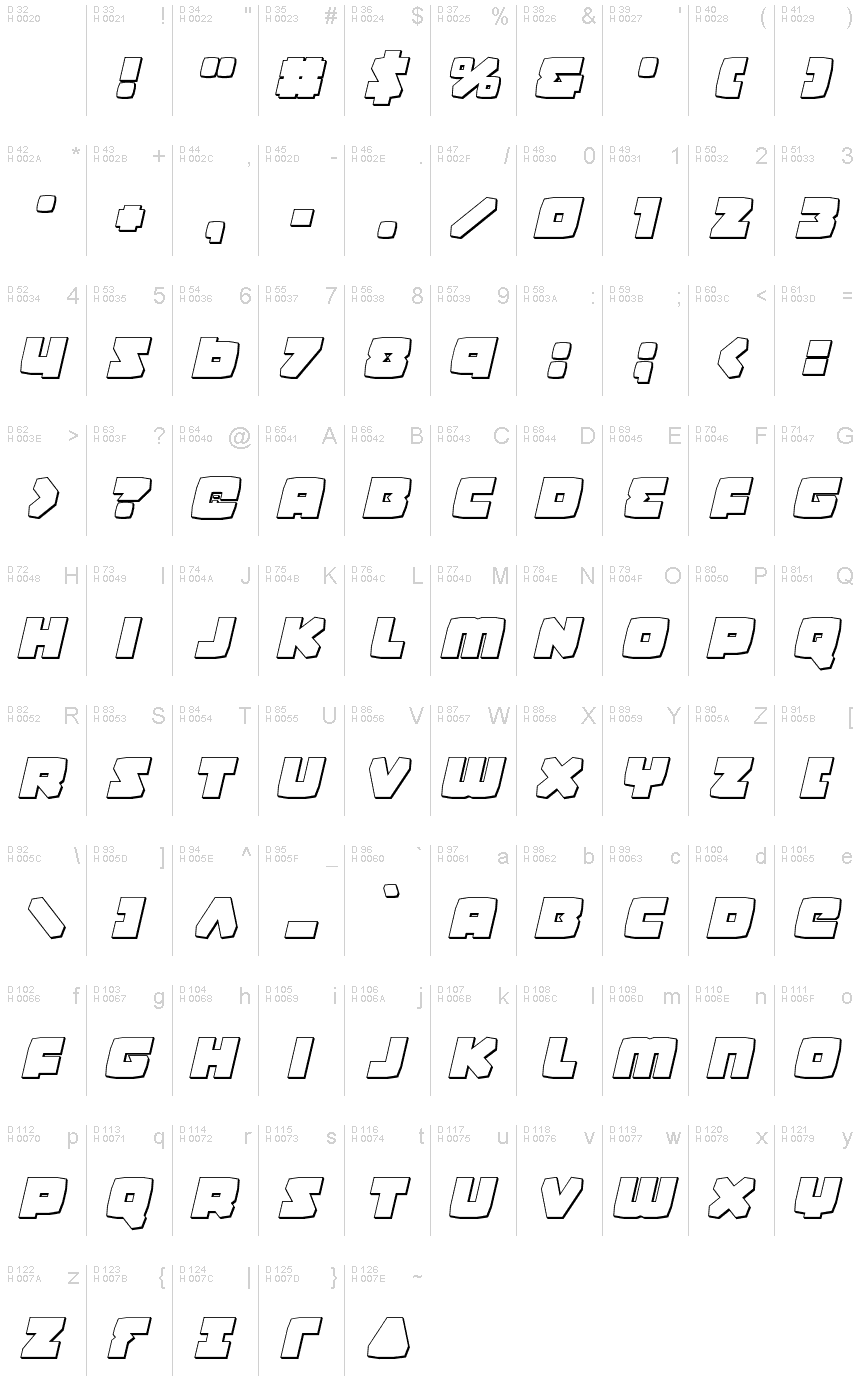
Gamer Spot 3D Italic
Gamer Spot 3D Italic, part of the dynamic Gamer Spot family by Iconian Fonts, is a striking ultra-bold display font that will make your projects pop with its extra-expanded width and 3d techno style. Perfect for gaming logos, futuristic websites, and branding materials that demand attention. This font is suitable for an array of projects including game development companies, tech startups or any brand that wants to stand out from the competition. With its unique blend of boldness and elegance, Gamer Spot 3D Italic is sure to grab the attention of any audience.